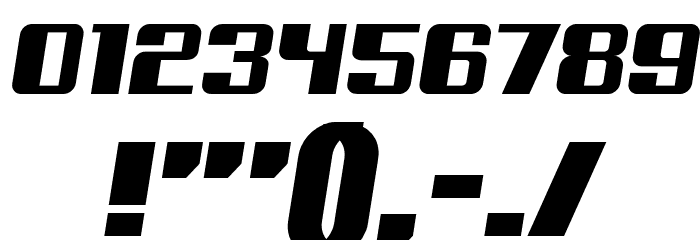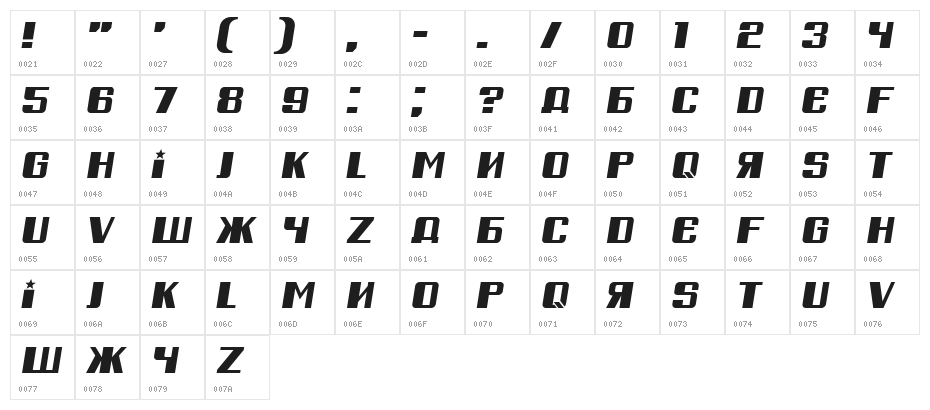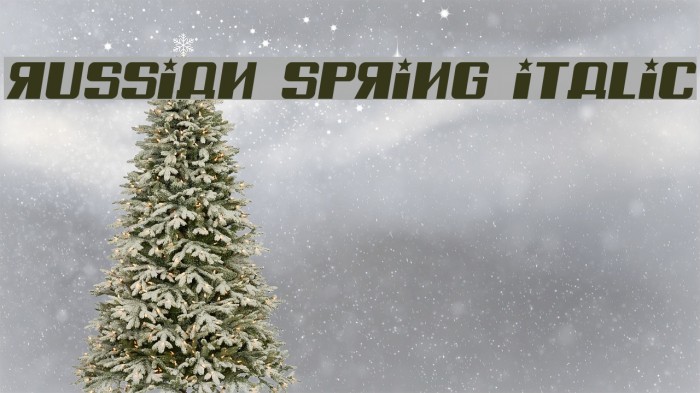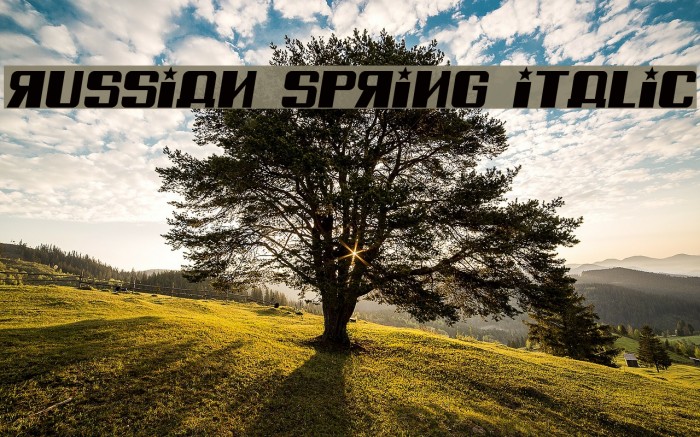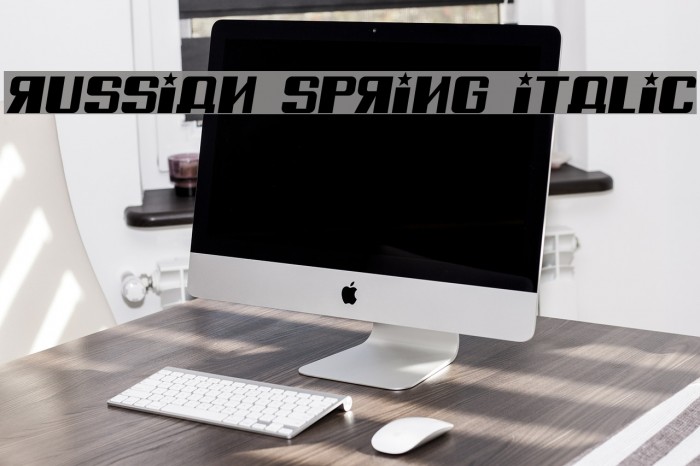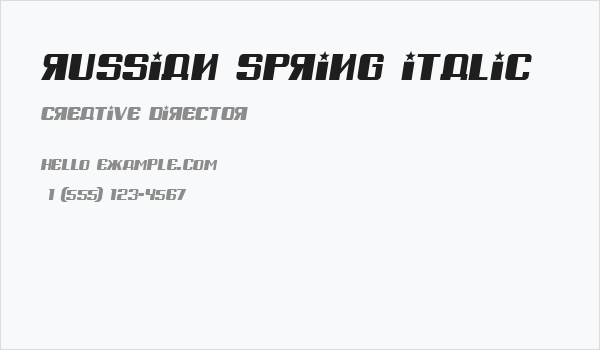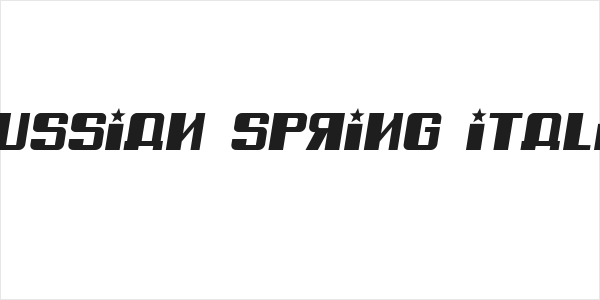
Russian Spring Italic Font
Russian Spring Italic Description
This font features a bold and dynamic style with a distinct italic slant, giving it a sense of movement and energy. The characters are blocky and robust, with sharp angles and a strong presence. Notably, some letters incorporate unique design elements, such as stars or stripes, adding a decorative touch. The font maintains a consistent weight throughout, ensuring readability while still making a statement. Its geometric shapes and solid structure make it suitable for impactful designs.
| Proposed Projects | Ideal for posters, headlines, branding projects, and any design requiring a strong, impactful typeface. |